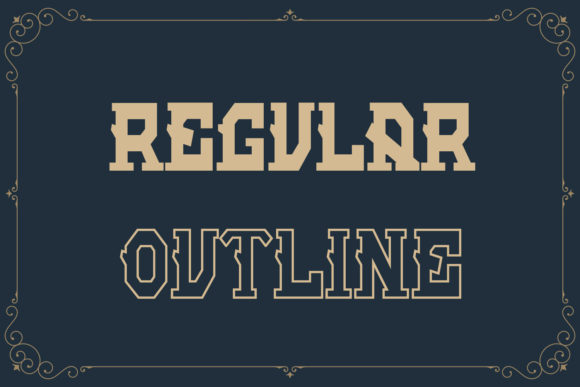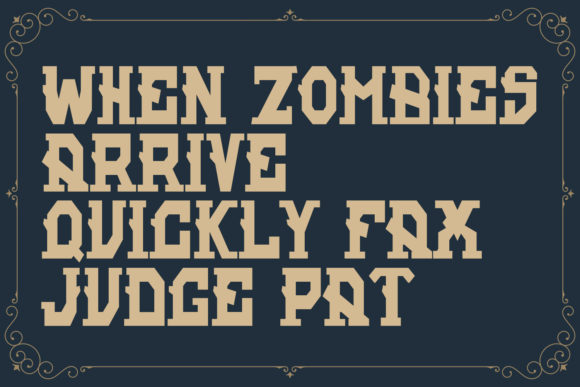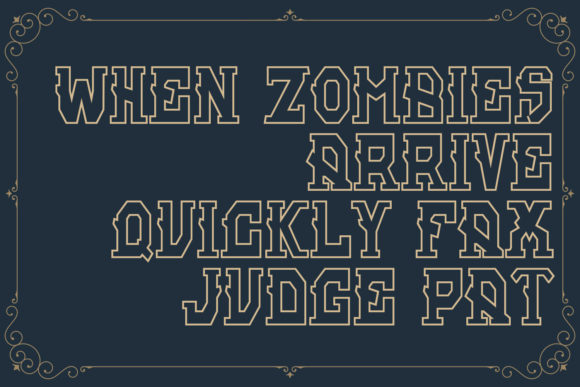
Introduction to Rasonic Font
Rasonic is a great display font with a vintage look.
This fantastic font is best suited for headlines of all sizes, as well as for blocks of text that have both maximum and minimum variations Whether it’s for web, print, moving images or anything else – Rasonic will look spectacular.